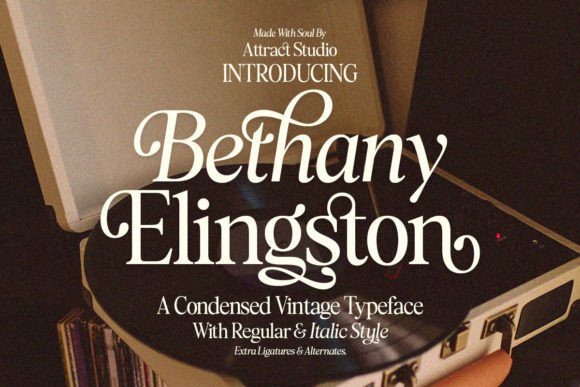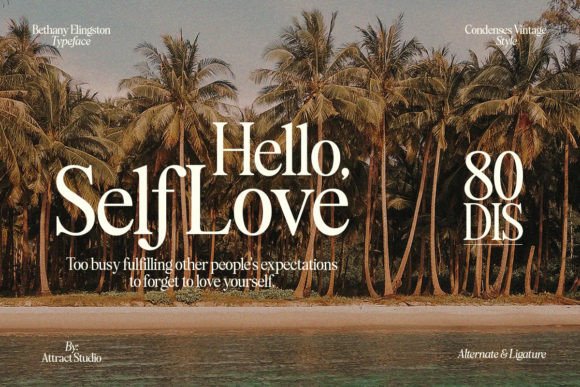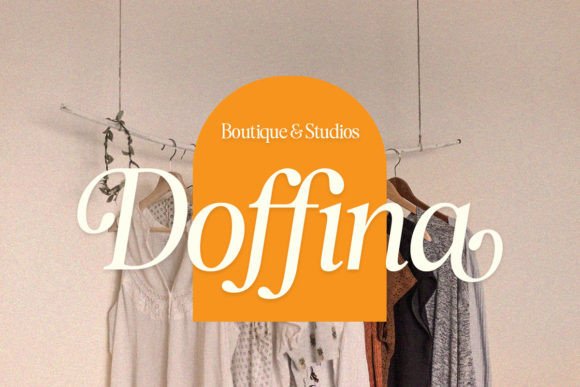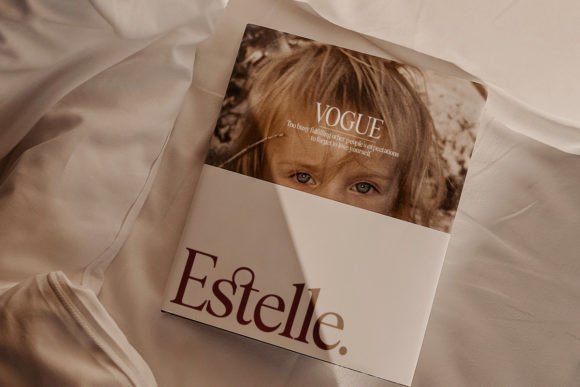
Bethany Elingston Font
About the Bethany Elingston Font
Meet Bethany Elingston Font, a stunning font that brings a touch of elegance and professionalism to any design. Bethany Elingston is a serif font with contrasting characters inspired by old-style and condensed serifs.
No matter the topic, this font will be an incredible asset to your fonts’ library, as it has the potential to elevate any creation.
Bethany Elingston Font Usage Examples